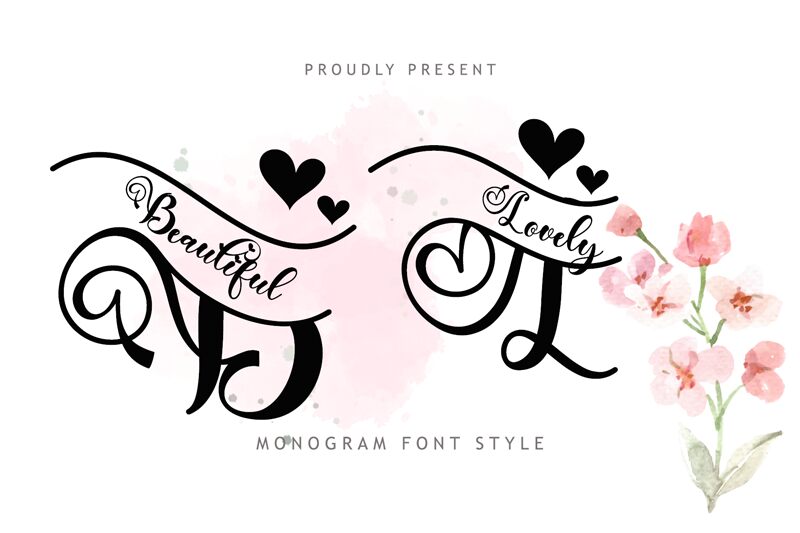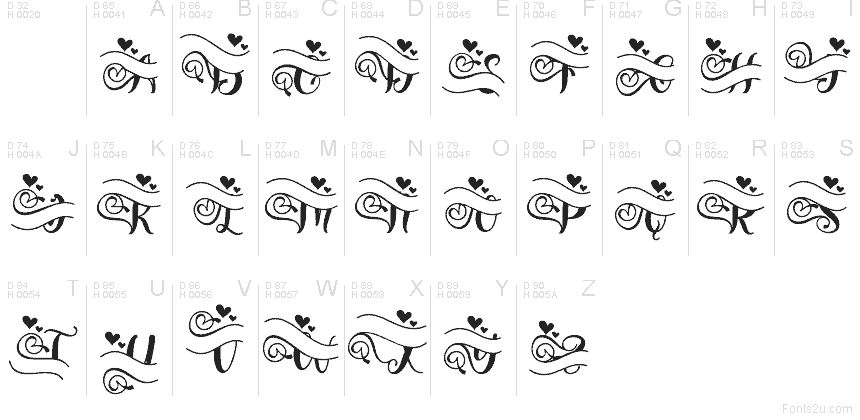
Beautiful Lovely Monogram Style
Beautiful Lovely Monogram Style font by Yoga Letter is a free holiday Valentine typeface that turns every letter into a tiny love note. Flourishing curls wrap around the forms like ribbons, with scattered hearts and loops that feel hand-drawn and a bit whimsical rather than stiff or formal. The Beautiful Lovely family has an ornate, decorative rhythm that instantly dresses up a name, initial, or short phrase without needing extra graphics.
Using Beautiful Lovely Monogram Style, you can easily craft romantic wedding monograms, Valentine’s cards, love coupons, gift tags, candle labels, and boutique branding that needs a soft, affectionate touch. This free font shines on social media quote posts and printable wall art when set large, letting the swirls and hearts breathe. For balance, pair it with a plain, light-weight sans serif for body text so the ornate letters stay the star.